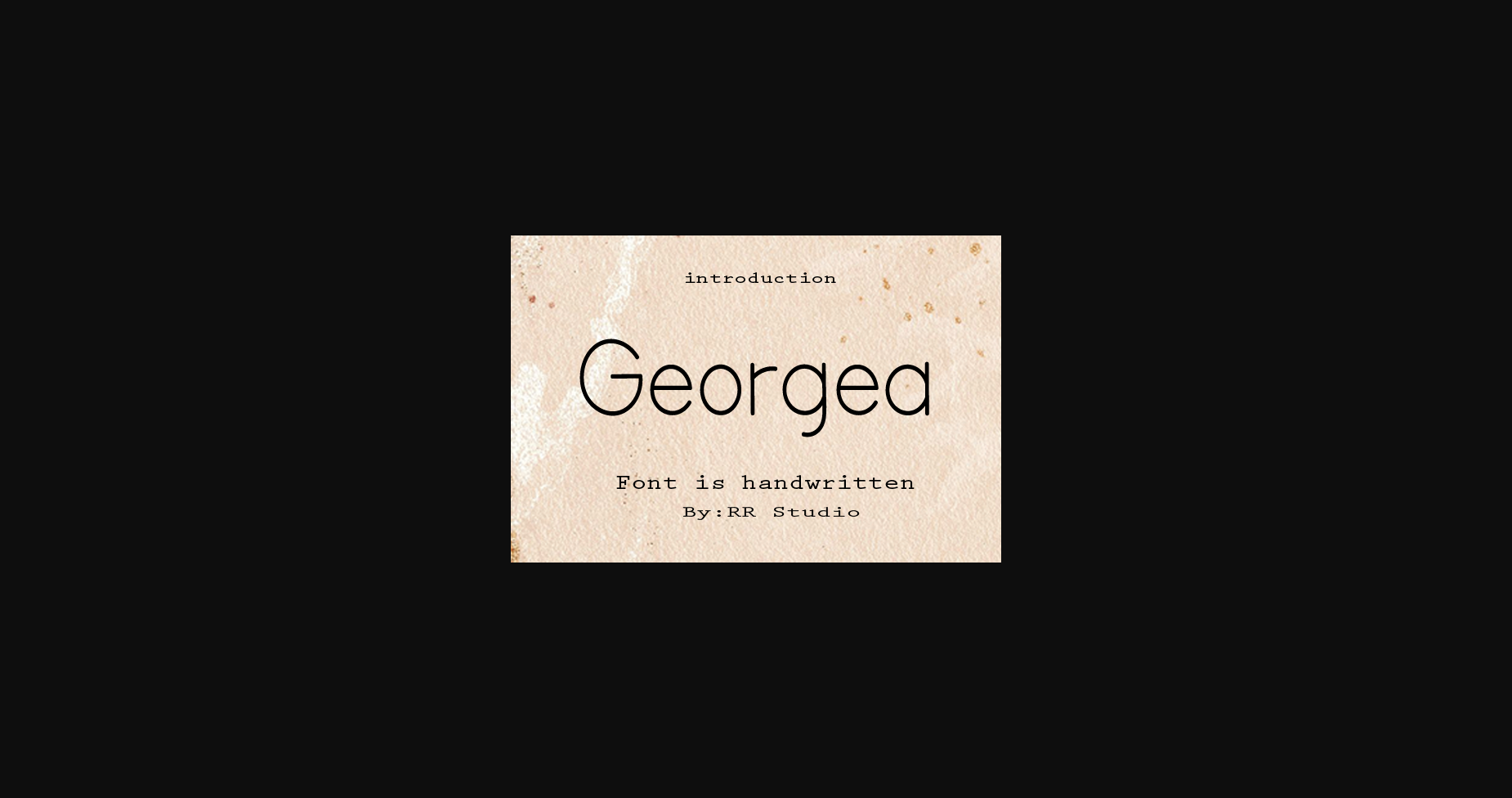
Georgea Font
About Georgea Font
Georgea is a stylish and simple lettered sans serif font. It looks gorgeous on wedding invitations, thank you cards, quotes, greeting cards, logos, business cards and every other design which needs a customized touch.